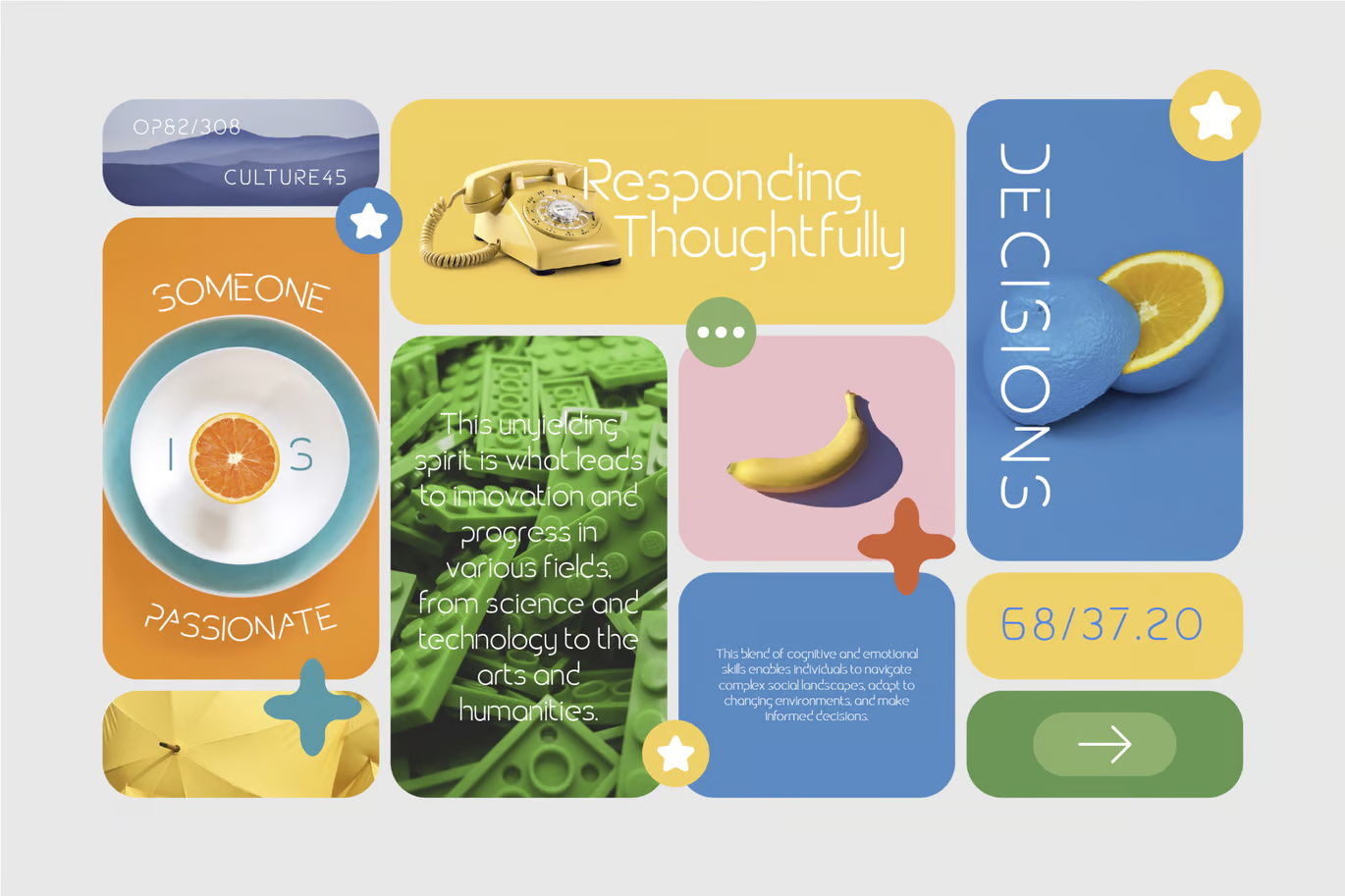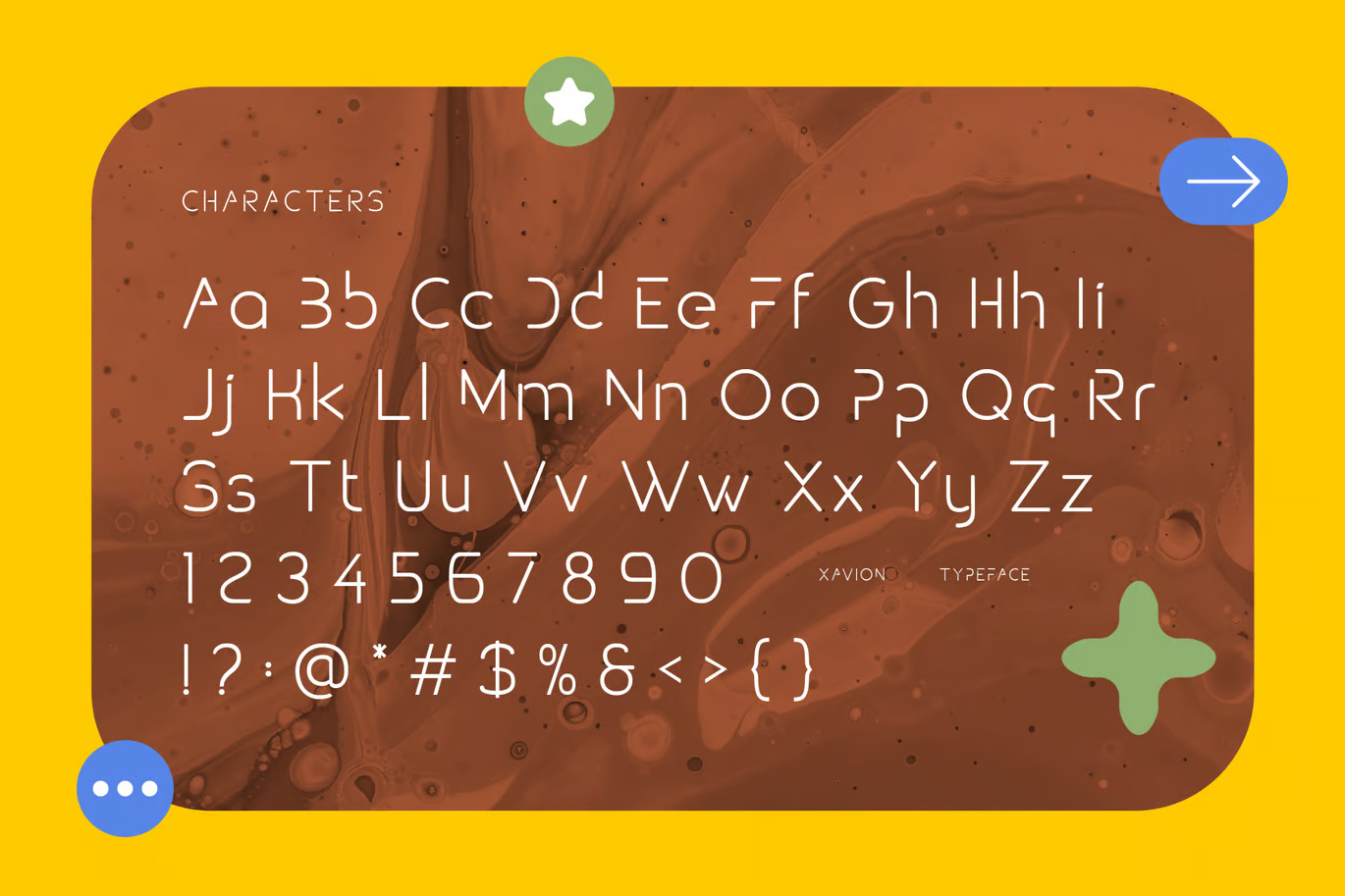
Xavion Sans Serif Font
Elevate your designs with Xavion Sans Serif Font, a modern font perfect for adding elegance and style to your projects. Whether it’s for quotes, logotypes, magazine headers, or more, this versatile typeface ensures your text stands out beautifully.
Xavion Elegant Sans Serif Font
Xavion Sans Serif Font